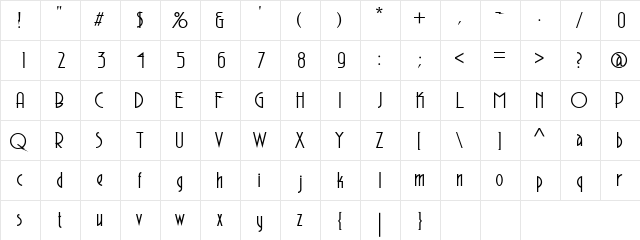
Aeronaut Regular
Design Context for Aeronaut Typeface
Aeronaut is a composed and adaptable typeface that performs quietly and consistently across a wide range of design contexts.
Pro Tip: Pair Aeronaut with a font of contrasting weight or personality to build a more expressive typographic hierarchy.